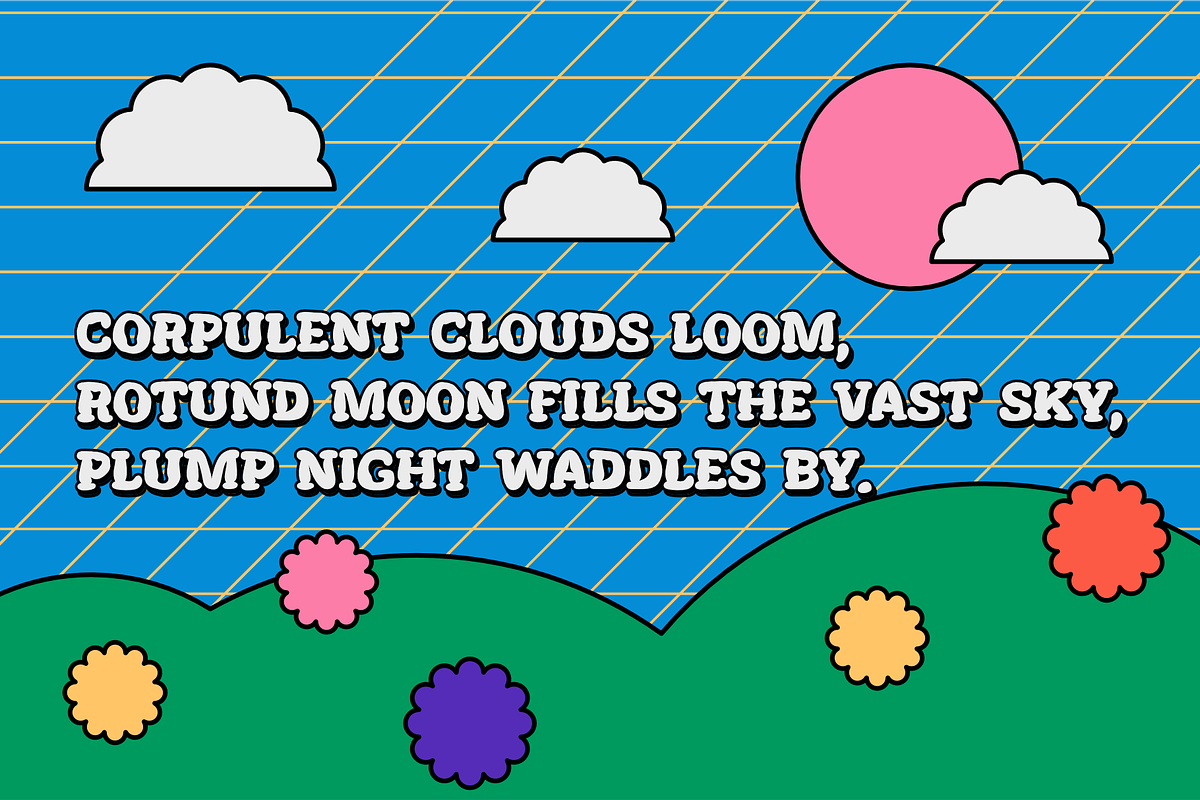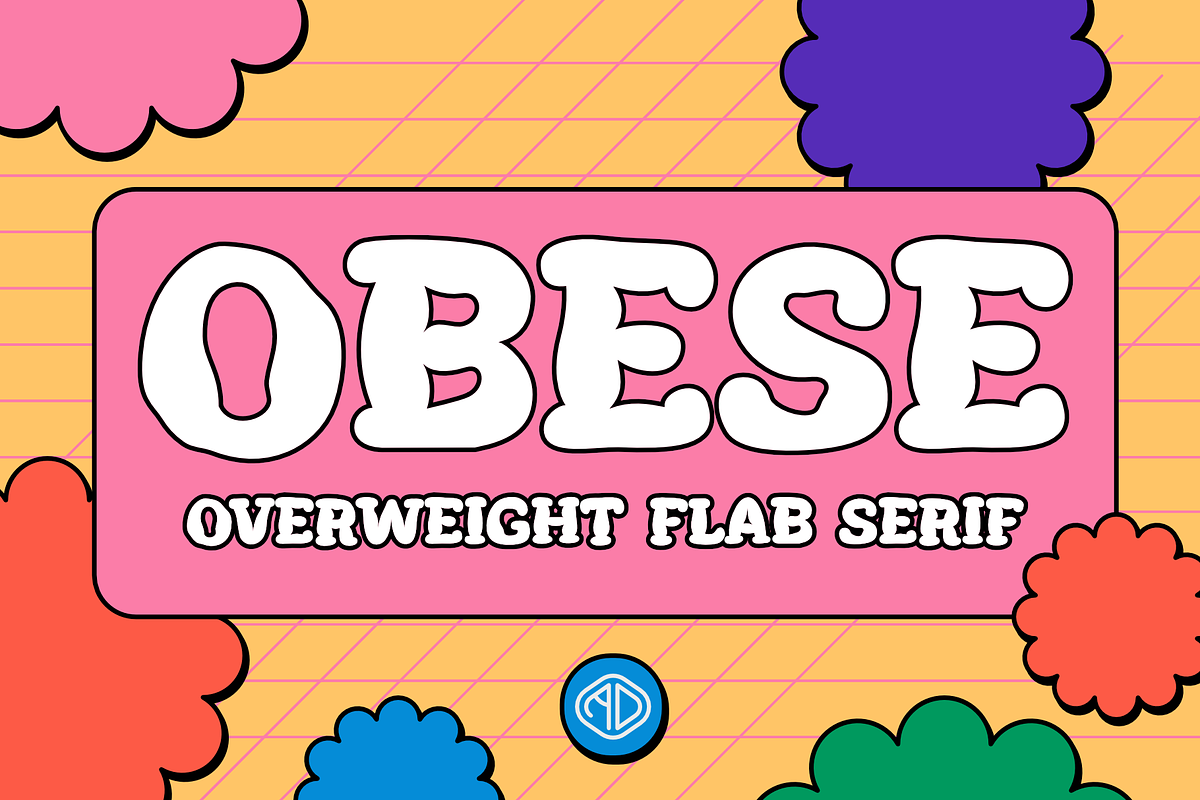
OBESE - Overweight Flab Serif
Obese is a bold typeface that isn't afraid show of it's flab serifs. Heavy breathing. High Heart rate. Getting a bit winded from all the excitement.